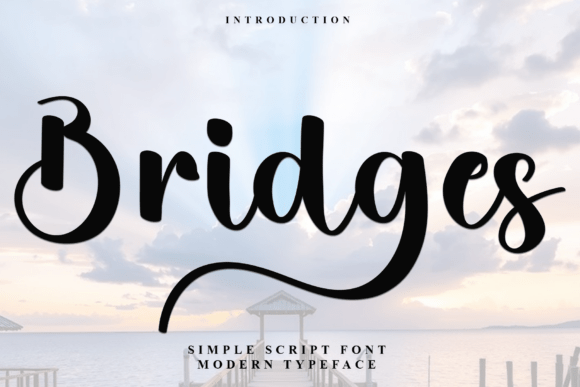
The Magic of Bridges Font: Elevate Your Holiday Designs
It’s that time of the year again – the season of joy, giving, and endless design projects. I still remember the year I was tasked with creating a festive holiday card for a client’s family reunion. I spent hours scouring the internet for the perfect font, something that would capture the essence of the season. That’s when I stumbled upon Bridges Font, a game-changer for any designer, crafter, or creative hobbyist looking to add a touch of magic to their work.
A Personal Review: What I Love About Bridges Font
I’ve had the pleasure of working with Bridges Font on several projects, and here’s what I love about it:
- ✨ Festive and merry vibe that’s perfect for the holiday season
- ✅ Decorative elements and whimsical flair that add a touch of enchantment to designs
- 💻 Highly versatile and suitable for various design projects, from greeting cards to holiday-themed merchandise
While Bridges Font is a fantastic addition to any design project, there are a few things to keep in mind:
- ⚠️ Some of the more intricate glyphs and ligatures might require a bit of experimentation to get just right
- 🤔 The font’s playful nature might not be suitable for more formal or corporate designs
Bridges Font was inspired by the magic of the holiday season. The designer, a lover of all things festive and fun, wanted to create a font that would capture the essence of the season. With its decorative elements and whimsical flair, Bridges Font is the perfect addition to any holiday design project.
| Font Name | Bridges Font |
| What is Bridges Font? | Bridges Font is a festive and merry typeface that’s perfect for holiday designs and projects. |